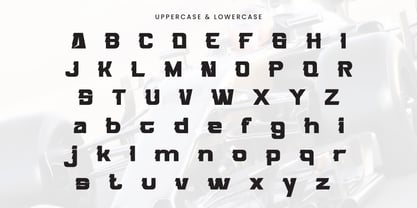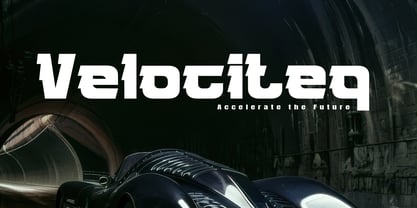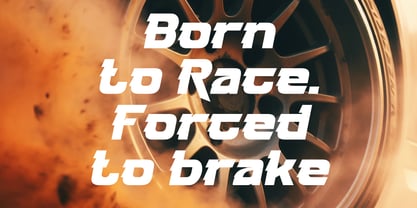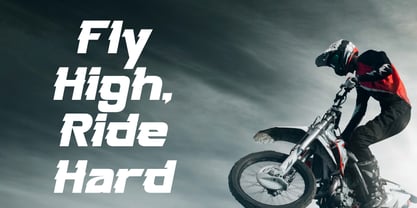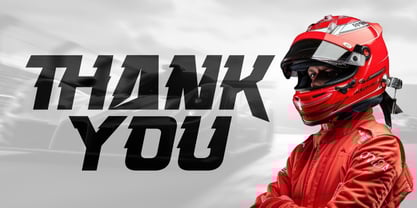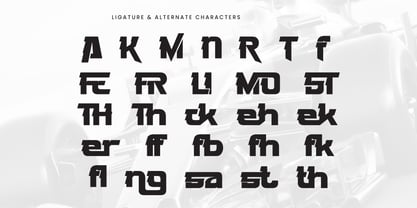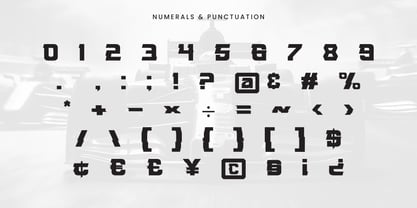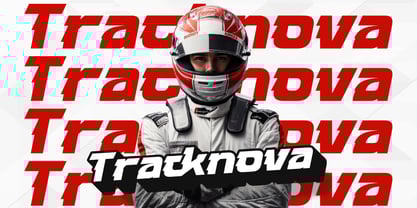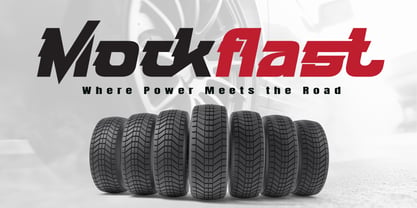
Afigre
by Rvandtype
The Afigre Font Family was designed by Randi Irvan and published by Rvandtype. Afigre contains 2 styles and family package options. More about this family
Afigre is a bold and aggressive display font designed for speed, power, and precision. Drawing inspiration from the high-octane world of motorsports, Afigre features sharp cuts, slanted angles, and aerodynamic forms that create a striking typographic presence. This font is ideal for racing posters, automotive branding, esports graphics, and any project that requires a fast and futuristic aesthetic. With its dynamic style and impactful design, Afigre stands out in any visual context, making it a perfect choice for brands looking to convey energy and movement.